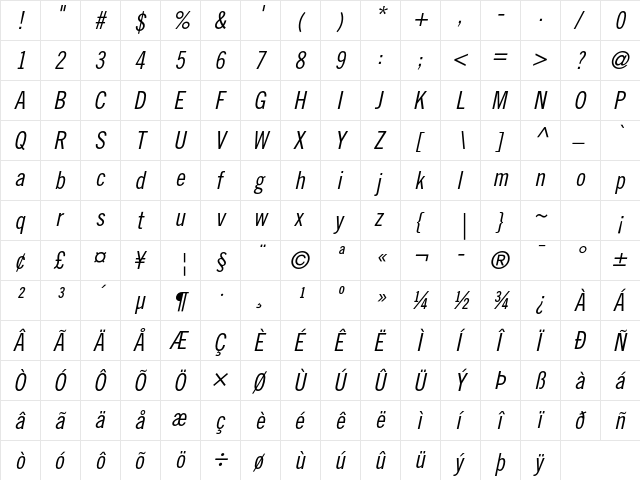
Trade Gothic LT Std Condensed No. 18 Oblique Font Preview
| Style | Condensed No. 18 Oblique |
| Designer | Jackson Burke |
Design Context for Trade Gothic LT Std Typeface
Trade Gothic LT Std takes a clean, functional approach — its unadorned letterforms prioritise legibility and work reliably across screen and print environments. The dynamic lean of this cut emphasises speed and emphasis in any layout. Its slender proportions lend an understated elegance to any composition. Its narrow stance lets it pack a punch even in space-constrained designs.
Ideal for fashion and beauty branding, minimal editorial layouts, and premium digital experiences.
Font Pairing: Pair Trade Gothic LT Std with a medium or bold serif for headlines — the weight contrast creates an elegant, high-end feel.
Pro Tip: Try Trade Gothic LT Std in all-caps with moderate tracking for navigation and label copy — it performs well in systematic UI contexts.